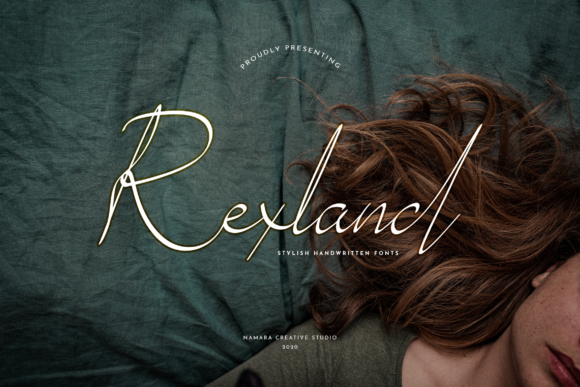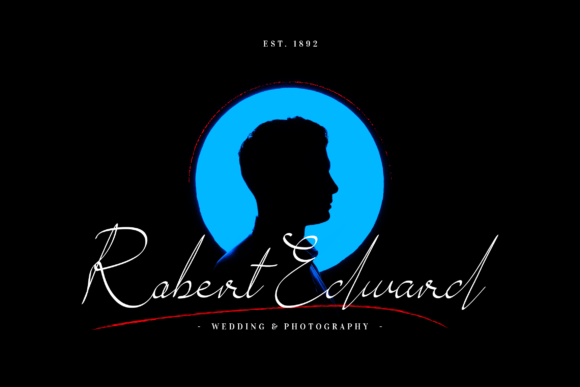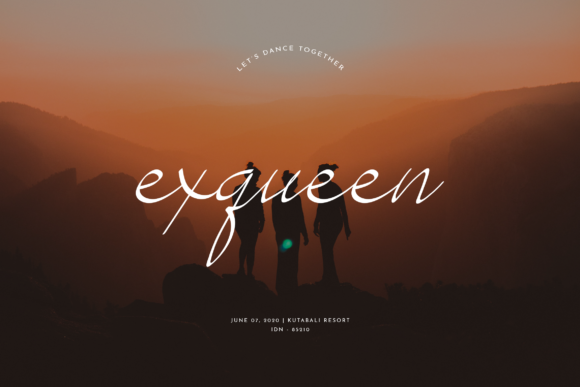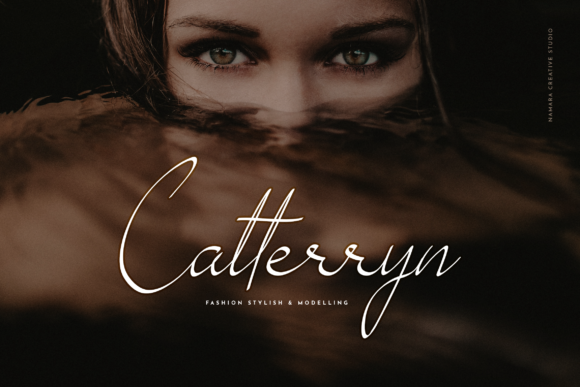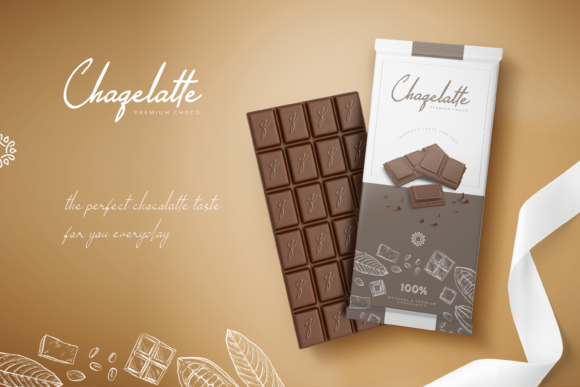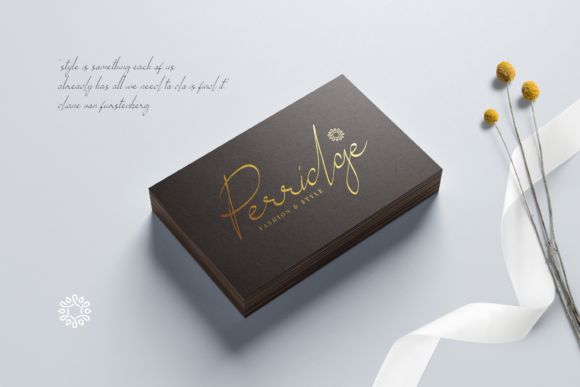
Rexland Font
About Rexland Font
Rexland simplifies elegance into one truly outstanding handwritten font. This font will look outstanding in any context, whether it’s being used on busy backgrounds or as a standalone headline!